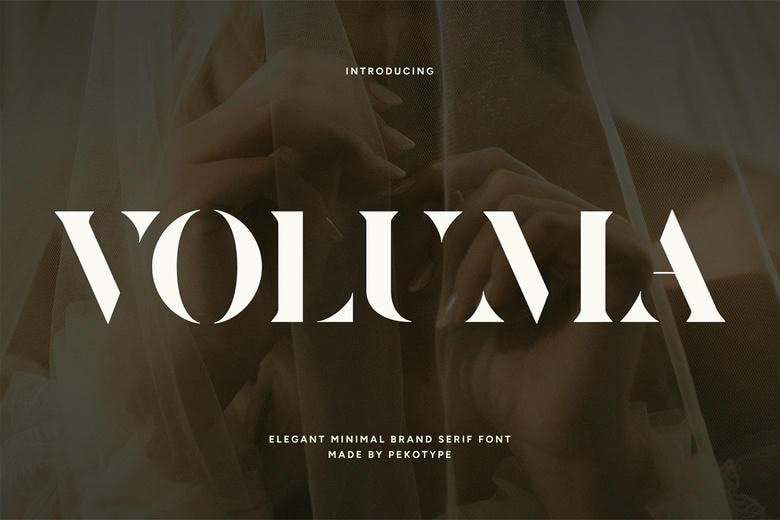
Voluma Font
Voluma is a minimalistic and stylish display typeface designed by designers who like luxurious design and its classic style. Voluma combines the newest geometrical shapes and elegant high contrast curves, the typeface is bold and stylish and easily luxurious.
Having both upper and lower cases, Voluma can be ideal when lifting brand names, premium logos, fashion editorial, product packaging, wedding invitation, marketing, and luxury social media content. The clean structure and the sculpted details provide any word with the feeling of artistry and exclusivity.
Voluma also has multilingual support and hence can be used in global branding efforts. This typeface is meant to be a showstopper but with a minimum amount of sophistication to it, that it adds a smooth and modern voice to any visual piece.
Voluma Serif Font